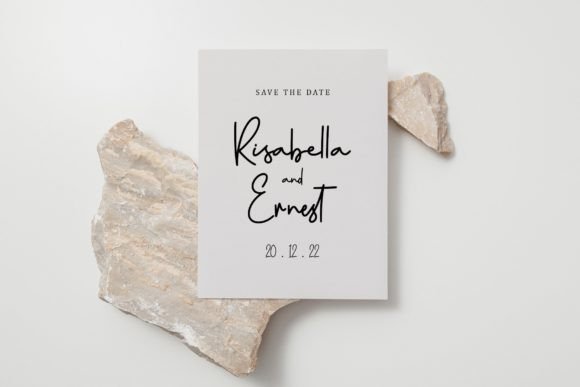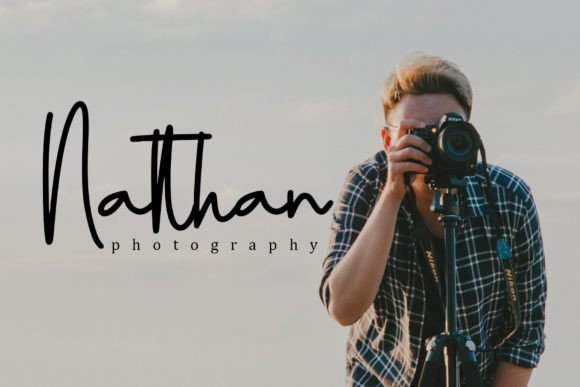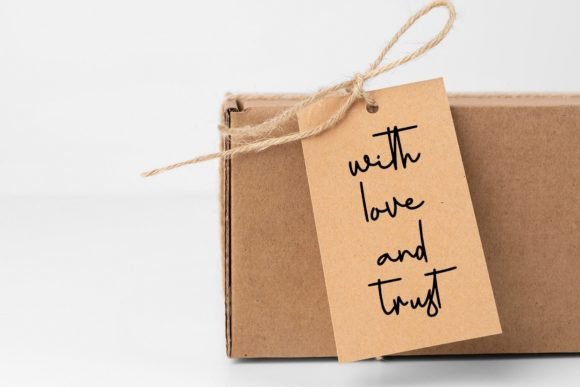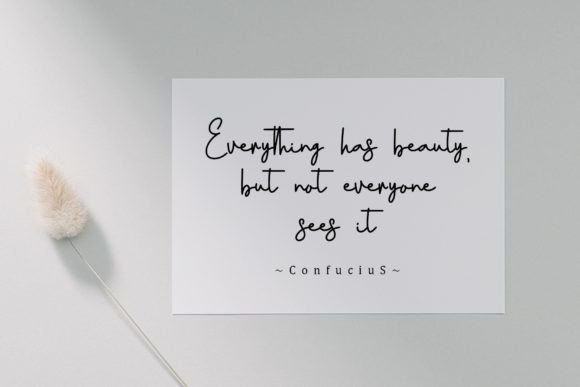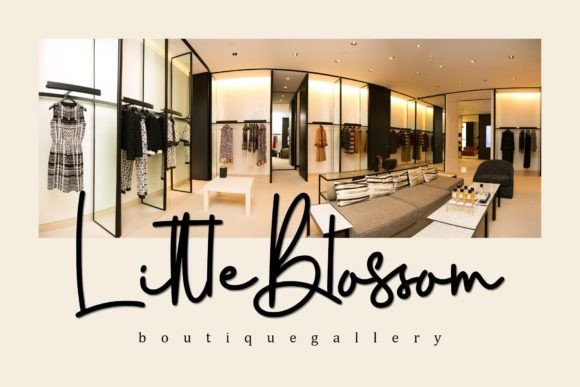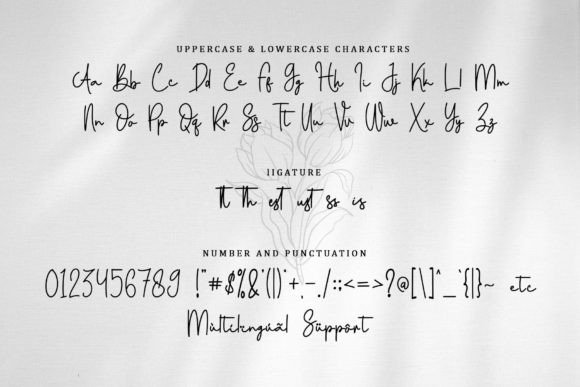
Fubrica Font: Elevate Your Designs with a Whimsical and Clean Handwritten Style
Are you tired of using the same old fonts in your designs? Look no further than Fubrica Font, a whimsical and clean handwritten font that’s sure to make your creative projects stand out. With its unique blend of playfulness and sophistication, Fubrica is the perfect addition to any designer’s toolkit.
What is Fubrica Font?
Fubrica Font is a carefully crafted handwritten font that’s designed to bring a touch of personality to your designs. Its clean lines and whimsical flair make it an incredibly versatile font that can be used in a wide range of projects, from branding and packaging to invitations and digital media.
Key Features of Fubrica Font
- Whimsical and clean design: Fubrica Font features a unique blend of playful and sophisticated elements, making it perfect for designs that need a touch of personality.
- Highly versatile: With its clean lines and simple design, Fubrica Font can be used in a wide range of projects, from formal to informal.
- Easy to read: Despite its whimsical design, Fubrica Font is incredibly easy to read, making it perfect for body text and headlines.
How to Use Fubrica Font in Your Designs
Fubrica Font is incredibly easy to use and can be incorporated into your designs in a variety of ways. Here are a few ideas to get you started:
- Branding and packaging: Use Fubrica Font to add a touch of personality to your brand’s packaging and marketing materials.
- Invitations and events: Fubrica Font is perfect for creating unique and eye-catching invitations for weddings, parties, and other events.
- Digital media: Use Fubrica Font to add a touch of whimsy to your website, social media graphics, and other digital media.
- Crafting and DIY projects: Fubrica Font can be used in a variety of crafting and DIY projects, such as making signs, banners, and other decorative items.
Why Choose Fubrica Font?
With so many fonts to choose from, why should you choose Fubrica Font? Here are just a few reasons why Fubrica Font stands out from the crowd:
- Unique design: Fubrica Font features a unique and whimsical design that’s sure to make your designs stand out.
- High-quality craftsmanship: Fubrica Font is carefully crafted to ensure that it’s both beautiful and functional.
- Easy to use: Fubrica Font is incredibly easy to use and can be incorporated into your designs in just a few clicks.
Tips for Getting the Most Out of Fubrica Font
Here are a few tips for getting the most out of Fubrica Font:
- Experiment with different colors and textures: Fubrica Font looks great in a variety of colors and textures, so don’t be afraid to experiment and find the perfect combination for your design.
- Use it with other fonts: Fubrica Font pairs well with a variety of other fonts, so try using it with other fonts to create a unique and eye-catching design.
- Pay attention to spacing and kerning: To ensure that your design looks its best, make sure to pay attention to spacing and kerning when using Fubrica Font.
Fubrica Font is a whimsical and clean handwritten font that’s perfect for designers and crafters who want to add a touch of personality to their designs. With its unique design, high-quality craftsmanship, and ease of use, Fubrica Font is sure to become a favorite in your design toolkit. So why wait? Download Fubrica Font today and start creating unique and eye-catching designs that stand out from the crowd!